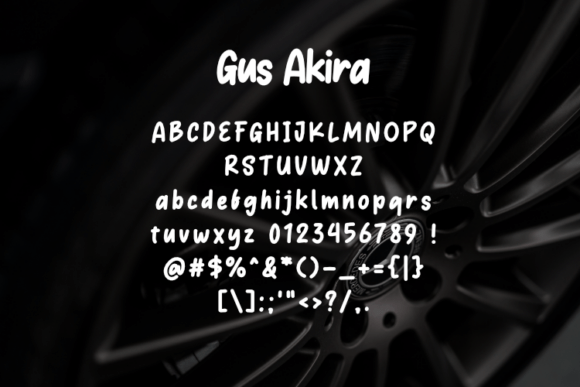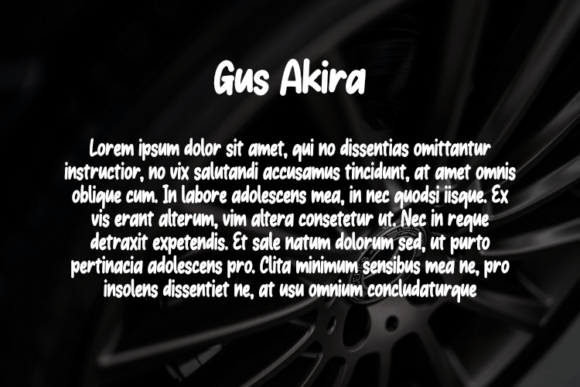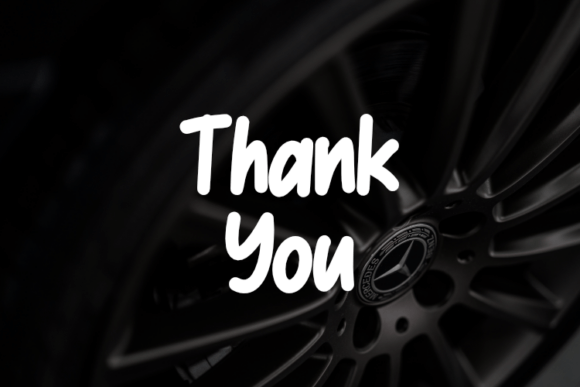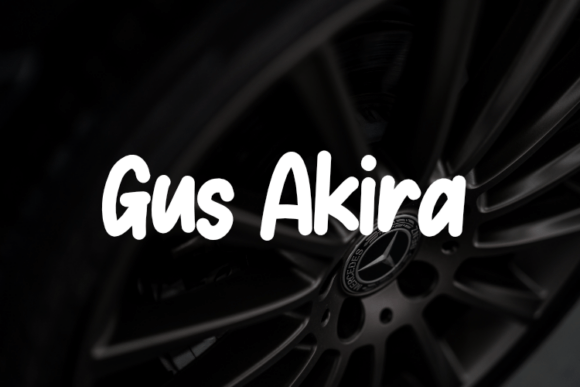
Introduction to Gus Akira Font
Immerse yourself in the striking appeal of β€œGus Akira”, a versatile font meticulously crafted for clothing and product design.
Why Choose Gus Akira Font?
Gus Akira Font offers exceptional quality and versatility, making it a valuable addition to your design toolkit. Whether you’re creating for personal projects or commercial use, Gus Akira Font delivers professional results.